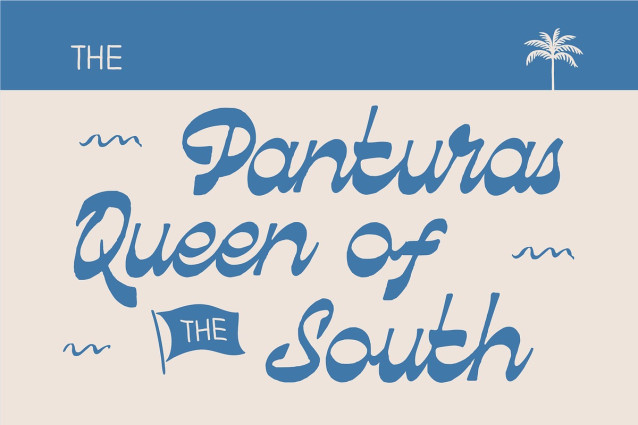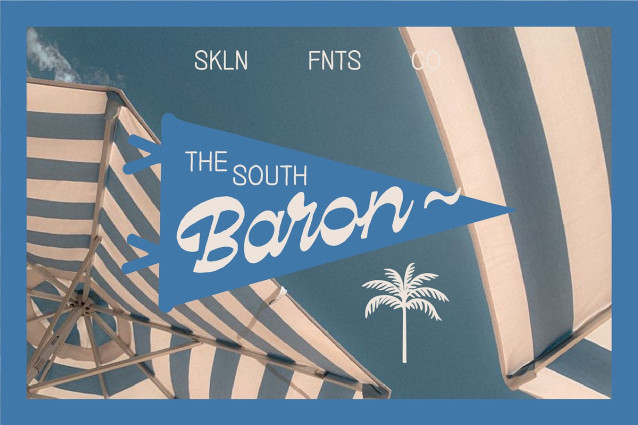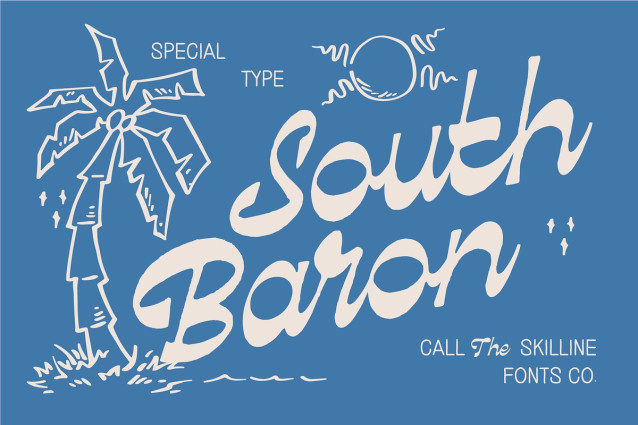
SFC South Baron Font
SFC South Baron Font is a breezy hand-drawn script font that captures the effortless charm of coastal lettering, retro signage, and nostalgic summer aesthetics. Designed with smooth strokes and an organic handwritten rhythm, it brings a warm, relaxed personality to every project while maintaining clarity, balance, and visual flow.